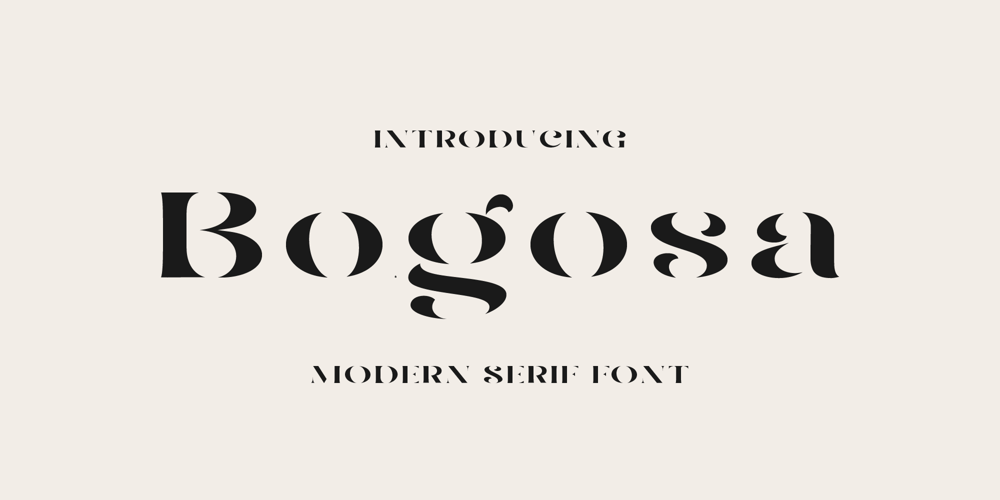
Bogosa
Bogosa font
Bogosa Font Family was designed by Issam Boufelja and published by Issam Type. Bogosa contains 1 styles and family package options. Bogosa – Modern Serif Font By Issam TypeBogosa serif font can be used for many project such as: book, magazines, logo, branding, photography, quotes, blog header, poster, advertisements, and much more.What’s Included?Uppercase & lowercase letters, numbers, punctuationMultilingual supportIf you have any questions, please feel free to get in touch.Thank you